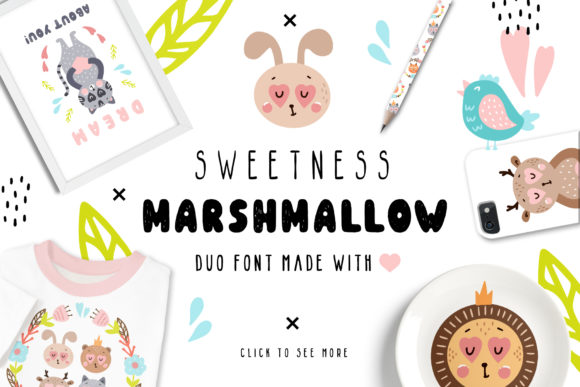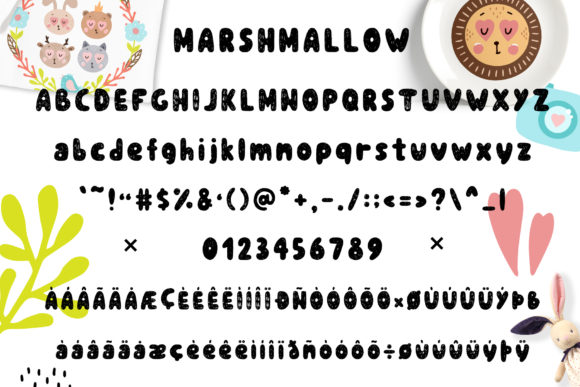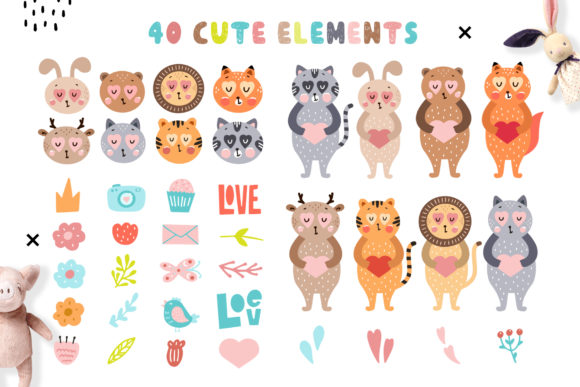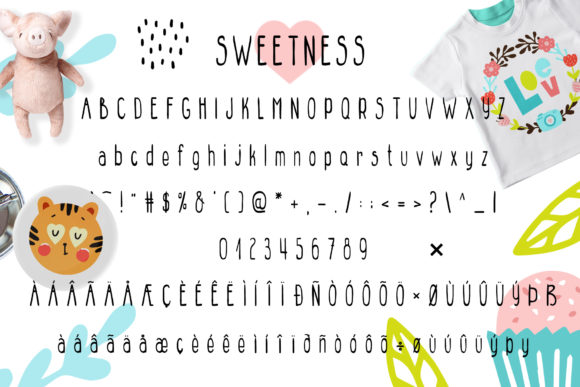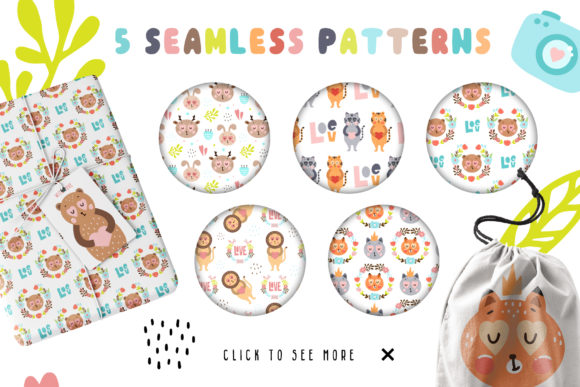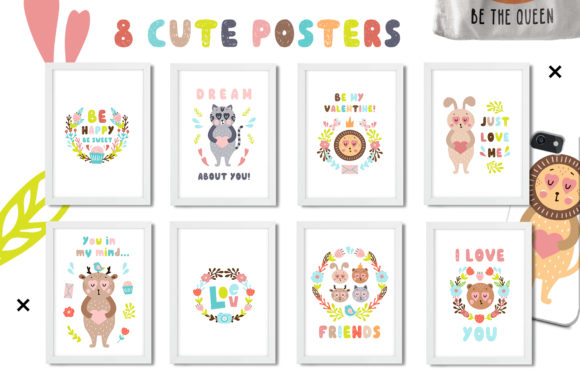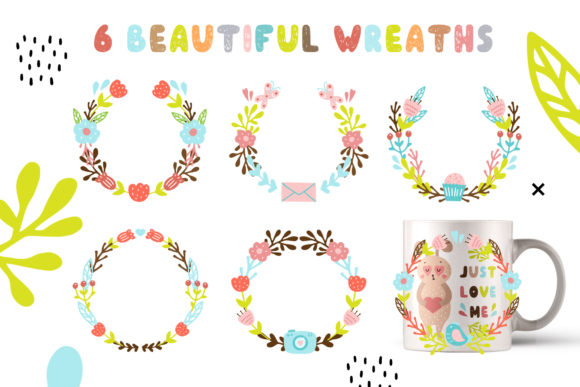
About Sweetness Marshmallow Duo Font
These cute fonts are made by hand and with great love, especially for your loved ones! Create your own unique design of cards, posters, wishes, invitations, interior decorations, textiles, fabric, brochures, gift wrapping, badges and more!
Included is a set of cute elements in the Scandinavian style, dedicated to Valentine’s day!